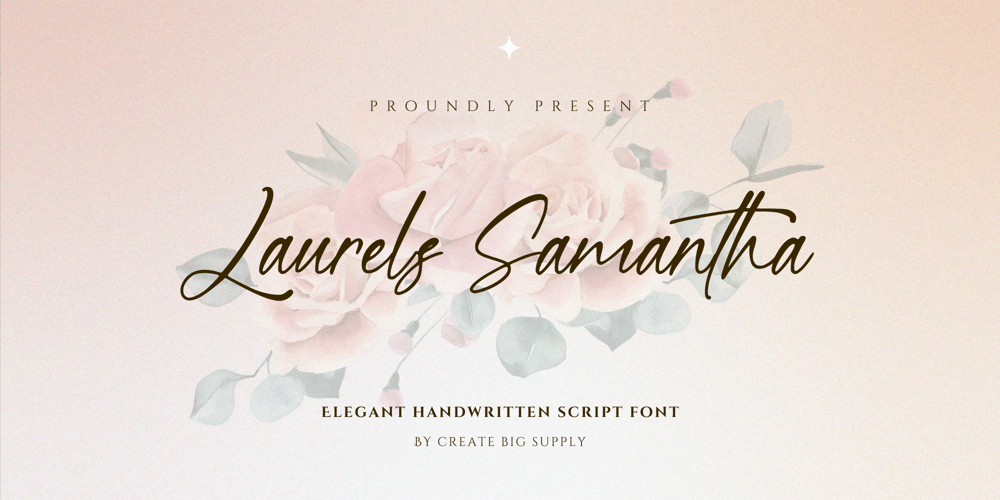
Laurels Samantha Font Family was designed by Irpan Maulana and published by Create Big Supply. Laurels Samantha contains 1 styles and family package options. Discover the elegance of Laurel’s Samantha, a captivating script handwriting signature font. With its beautiful style, Laurel’s Samantha is perfect for adding a touch of sophistication to your projects. Whether you’re designing wedding invitations, creating stunning logos, or crafting eye-catching social media posts, this font is sure to make a lasting impression. It features both uppercase and lowercase letters, numbers, and punctuations, providing versatility in your designs. The font is multilingual, enabling you to communicate your message globally. With PUA encoding, accessing ligatures and additional glyphs is effortless. Explore the full character set of Laurel’s Samantha and elevate your creative endeavors.